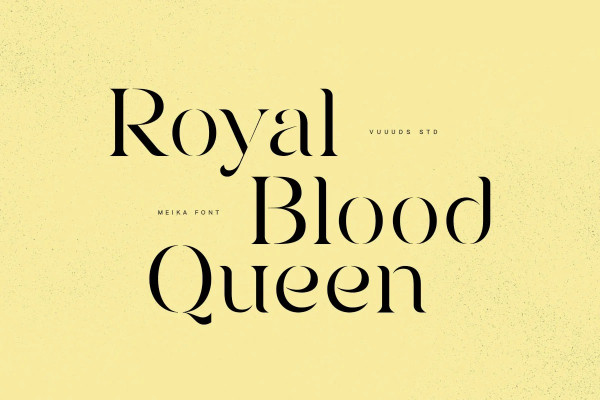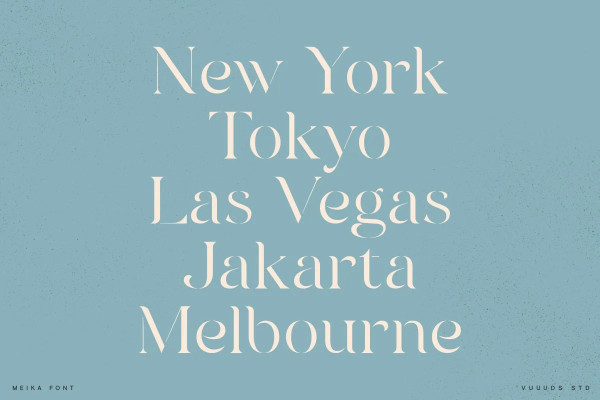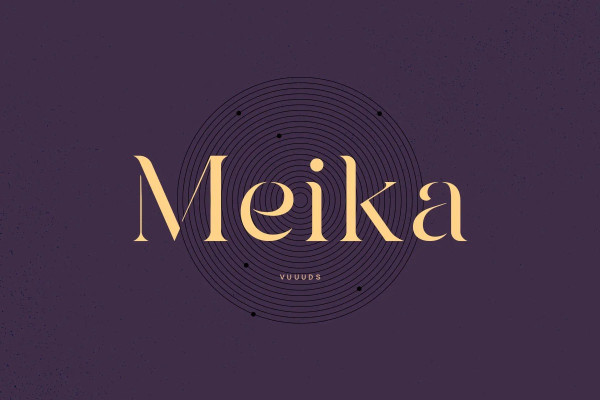
Meika Font
Meika Font is modern stencil serif font, every single letters have been uniquely crafted. This font including beautiful alternate glyph. You can access the alternate glyph via Font Book (Mac user) or Windows Character Map (Windows user), I’ve been put the link tutorial inside the zip file.
Foreign languages support: ÀÁÂÃÄÅÆÇÈÉÊËÌÍÎÏÐÑÒÓÔÕÖØÙÚÛÜÝàáâãäåæçèéêëìíîïðñòóôõöøùúûüýÿ